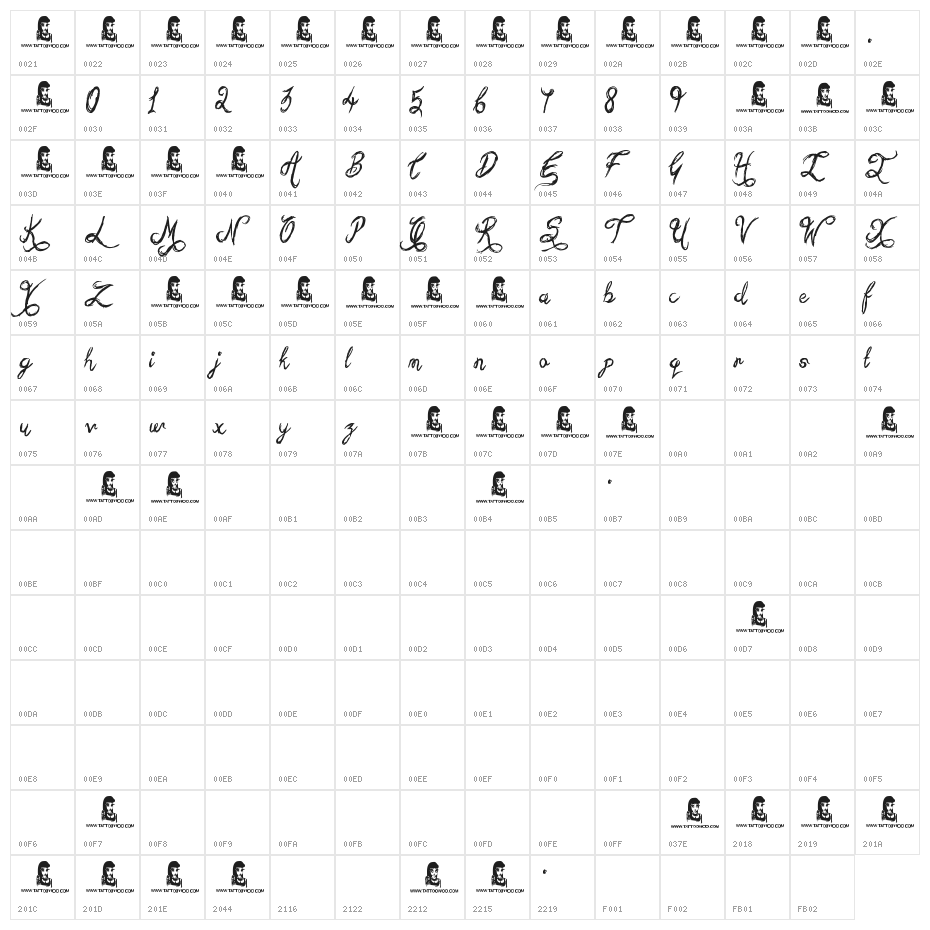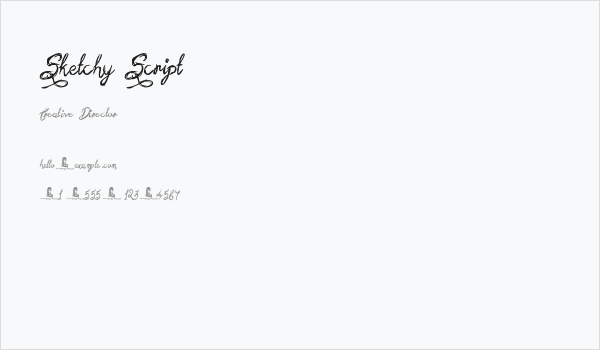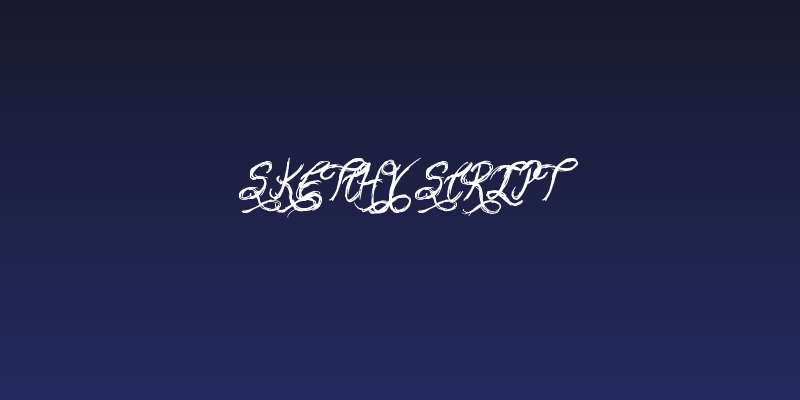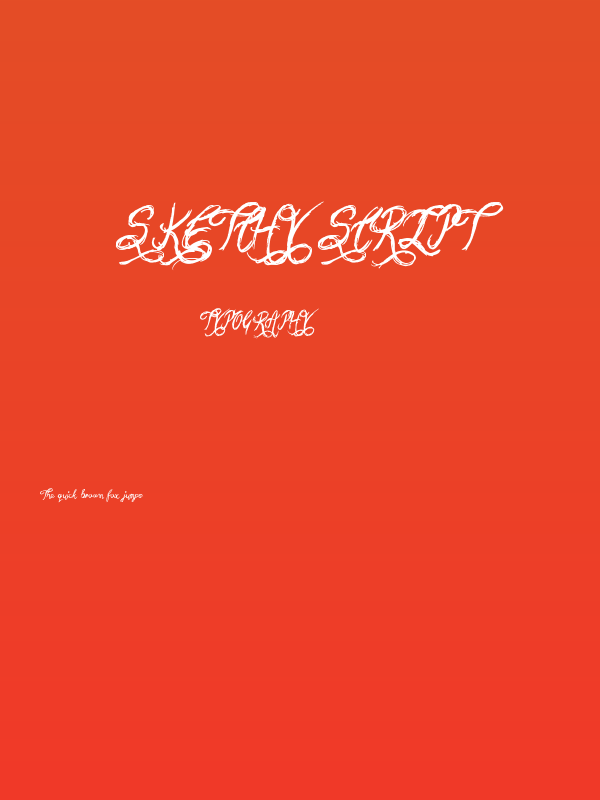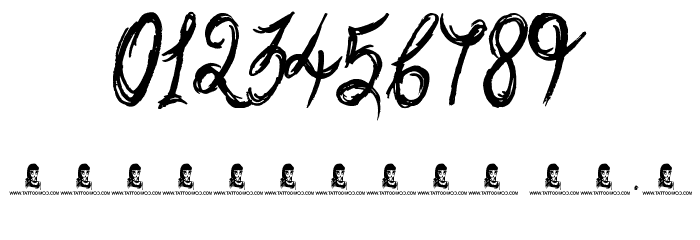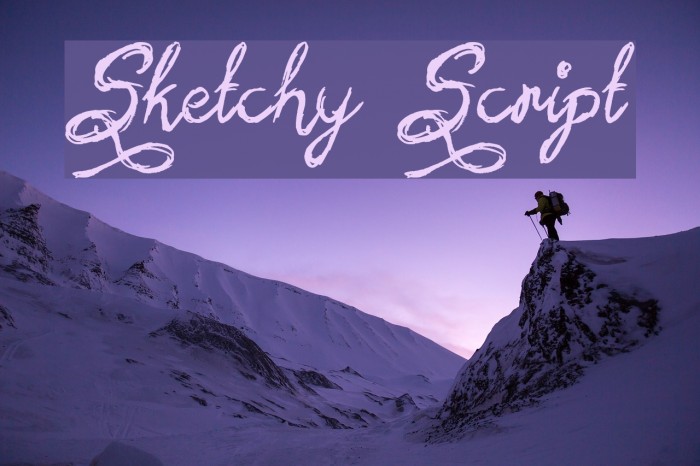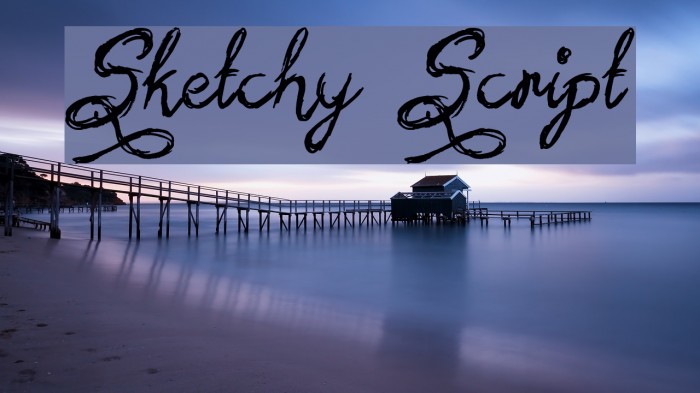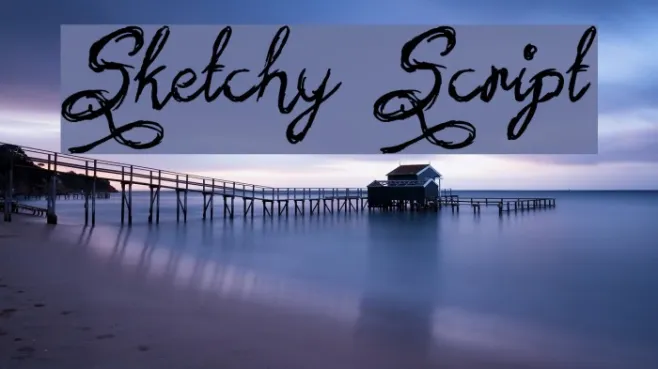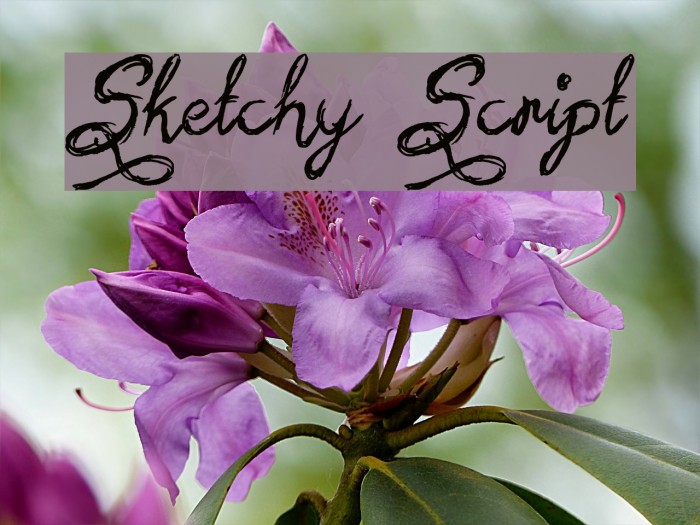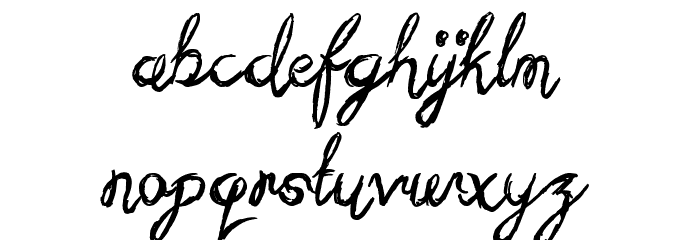
Sketchy Script Font
Sketchy Script Description
This font features a dynamic and expressive script style, characterized by its flowing, cursive letterforms that mimic the appearance of hand-drawn sketches. The strokes are bold and varied, with a rough, textured finish that adds a sense of movement and energy. The uppercase letters are particularly elaborate, with intricate loops and swirls, while the lowercase letters maintain a more straightforward yet still artistic form. Numbers and special characters follow the same sketchy aesthetic, ensuring consistency across all glyphs. This font's unique style makes it stand out, ideal for projects that require a personal, handcrafted touch.
| Proposed Projects | Ideal for creative projects such as invitations, greeting cards, branding, and artistic posters where a personal, handcrafted look is desired. |